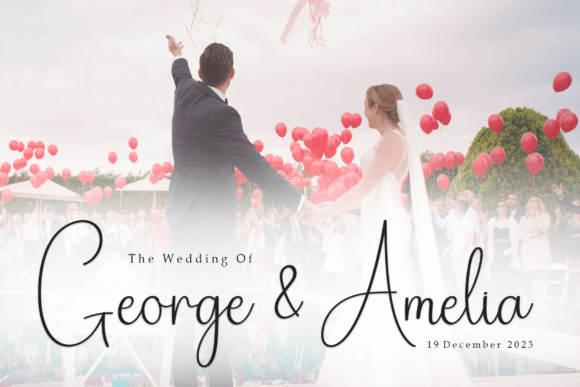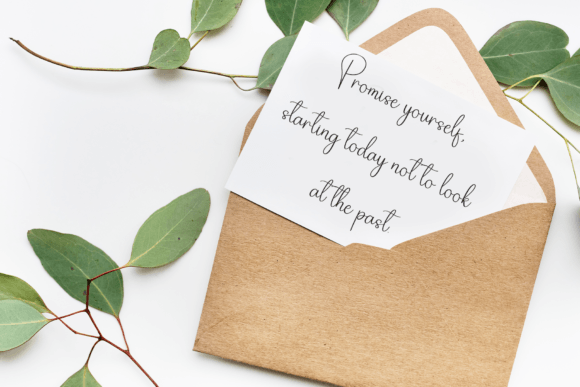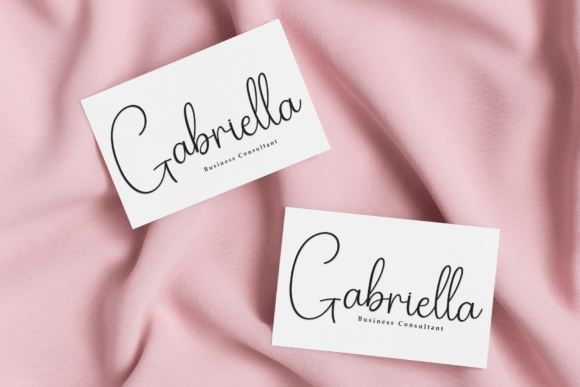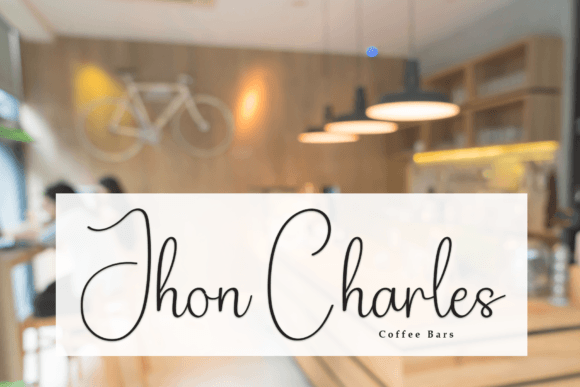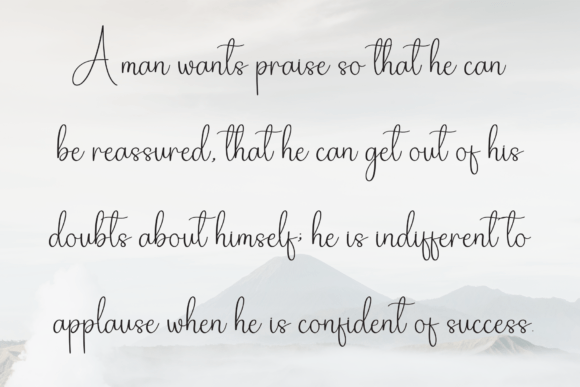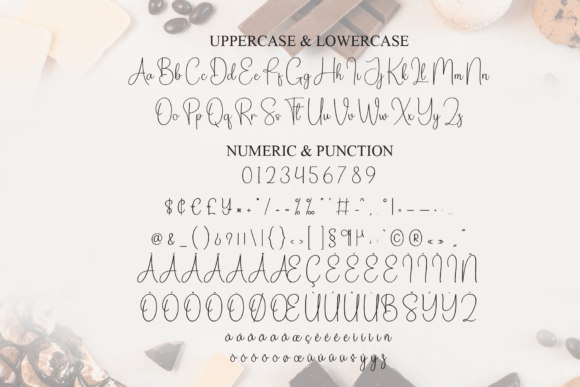
Introducing Chocolate Font: The Perfect Addition to Your Design Arsenal
Are you a designer or crafter looking for a font that exudes elegance and sophistication? Look no further than Chocolate Font, a delicate and flowing handwritten font that is sure to elevate your designs to the next level. With its beautiful and well-balanced characters, Chocolate Font is the perfect addition to your design arsenal, matching a wide pool of designs with ease.
What is Chocolate Font?
Chocolate Font is a type of handwritten font that is characterized by its elegant and flowing strokes. It is a carefully crafted font that is designed to provide a sense of sophistication and refinement to any design project. Whether you’re working on a logo, a brochure, or a website, Chocolate Font is the perfect choice for designers who want to add a touch of elegance to their work.
Key Features of Chocolate Font
So, what makes Chocolate Font so special? Here are some of its key features:
- Delicate and elegant strokes: Chocolate Font features delicate and elegant strokes that give it a refined and sophisticated look.
- Well-balanced characters: Each character in Chocolate Font is carefully crafted to ensure that it is well-balanced and visually appealing.
- Flowing handwritten style: Chocolate Font has a flowing handwritten style that gives it a natural and organic feel.
- Versatile: Chocolate Font can be used in a wide range of design projects, from logos and brochures to websites and social media graphics.
Why Choose Chocolate Font?
So, why should you choose Chocolate Font for your design projects? Here are just a few reasons:
- Adds elegance to your designs: Chocolate Font is the perfect choice for designers who want to add a touch of elegance to their work.
- Improves readability: The well-balanced characters in Chocolate Font make it easy to read, even at small sizes.
- Versatile: Chocolate Font can be used in a wide range of design projects, making it a great addition to your design arsenal.
- Unique: Chocolate Font is a unique font that will help your designs stand out from the crowd.
How to Use Chocolate Font in Your Designs
Using Chocolate Font in your designs is easy. Here are a few tips:
- Pair it with other fonts: Chocolate Font pairs well with other fonts, such as sans-serif fonts and script fonts.
- Use it for headings and titles: Chocolate Font is perfect for headings and titles, where its elegant strokes can really shine.
- Experiment with different colors: Chocolate Font looks great in a variety of colors, from rich and bold to soft and pastel.
In conclusion, Chocolate Font is a beautiful and elegant handwritten font that is perfect for designers and crafters who want to add a touch of sophistication to their work. With its delicate and flowing strokes, well-balanced characters, and versatile design, Chocolate Font is the perfect addition to your design arsenal. Whether you’re working on a logo, a brochure, or a website, Chocolate Font is sure to elevate your designs to the next level.
Here are a few tips for designers and crafters who want to get the most out of Chocolate Font:
- Experiment with different design styles: Chocolate Font is versatile and can be used in a wide range of design styles, from modern and minimalist to vintage and distressed.
- Use it for branding and marketing materials: Chocolate Font is perfect for branding and marketing materials, such as logos, business cards, and brochures.
- Pair it with images and graphics: Chocolate Font pairs well with images and graphics, and can be used to add a touch of elegance to your designs.